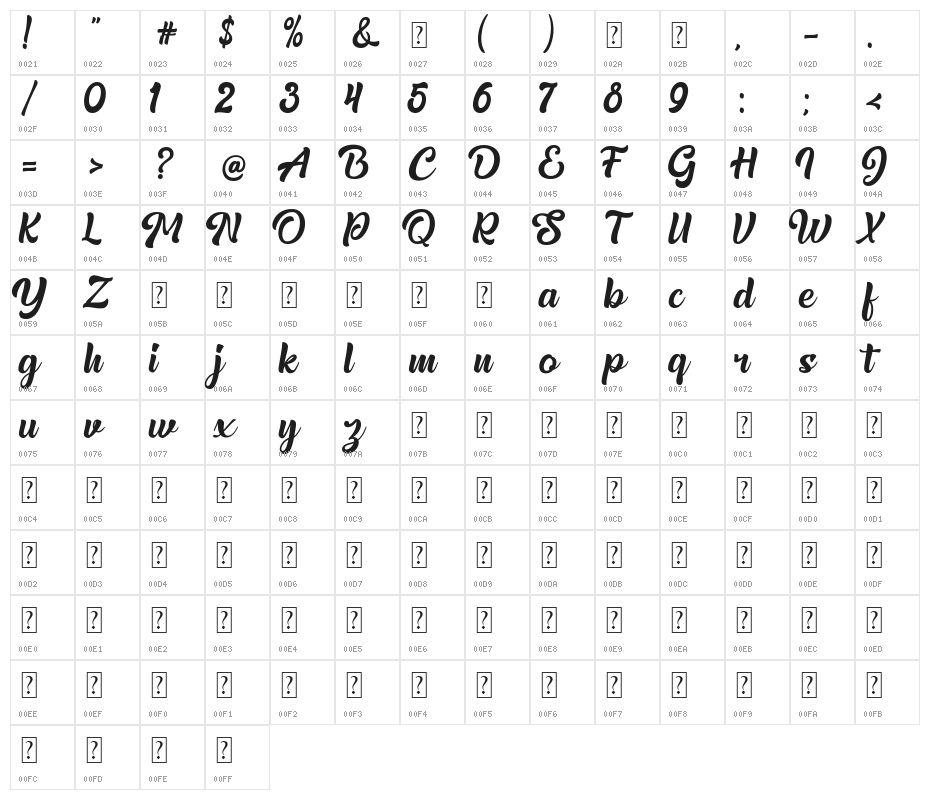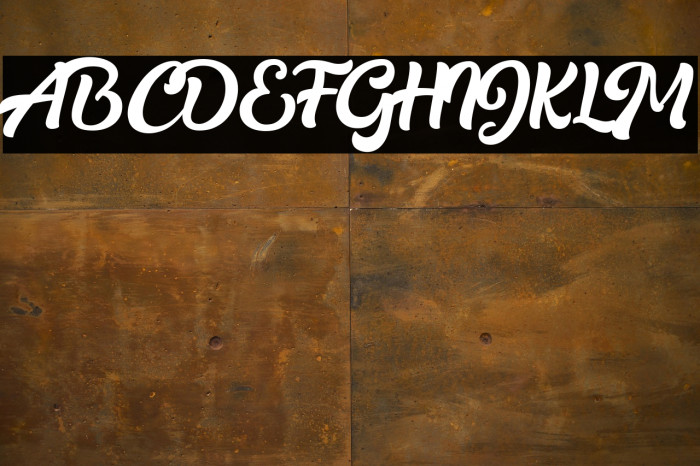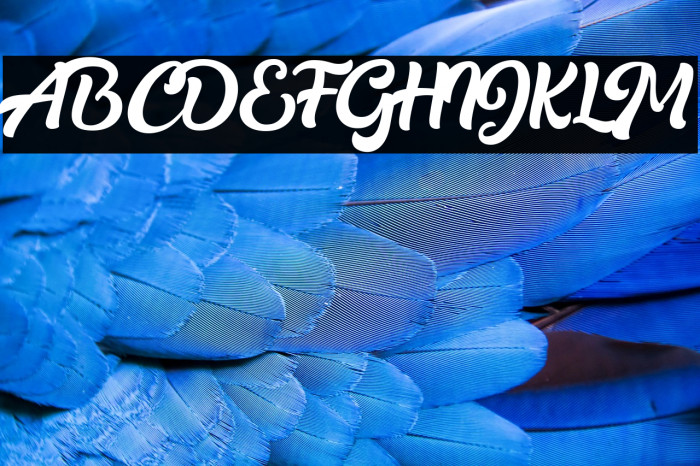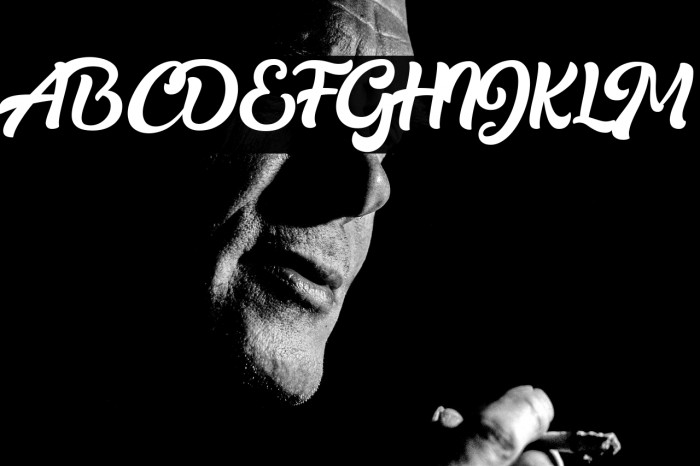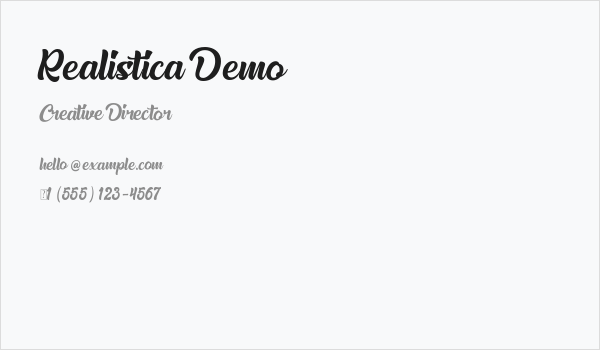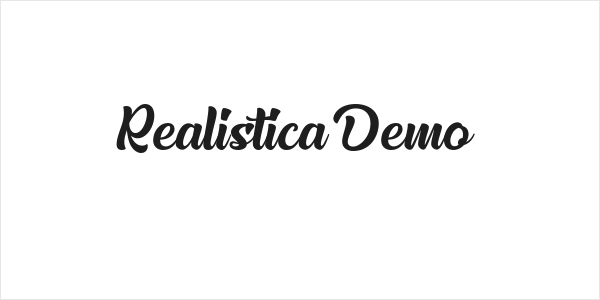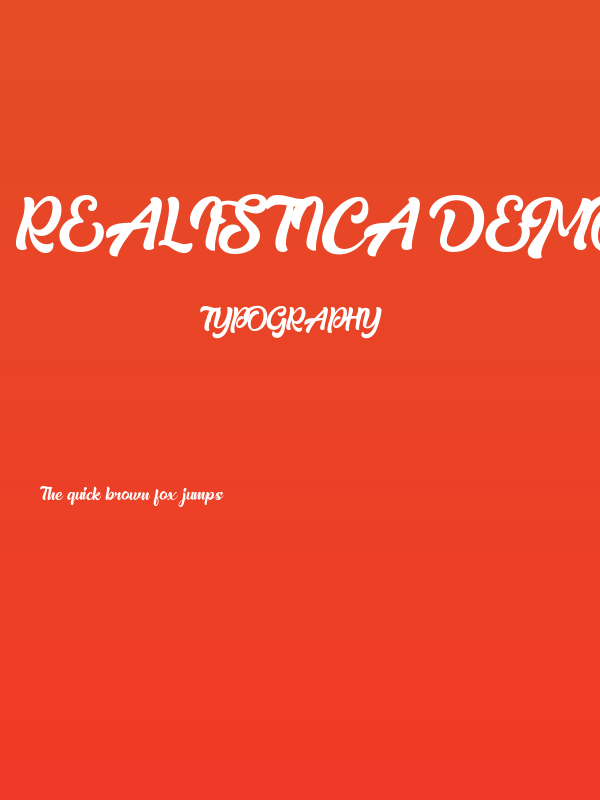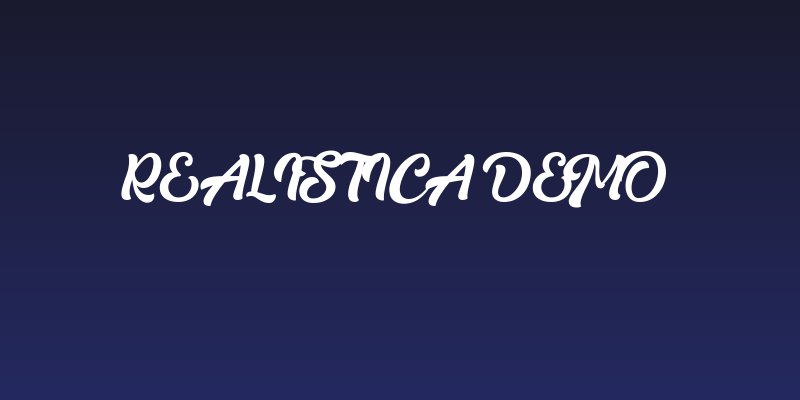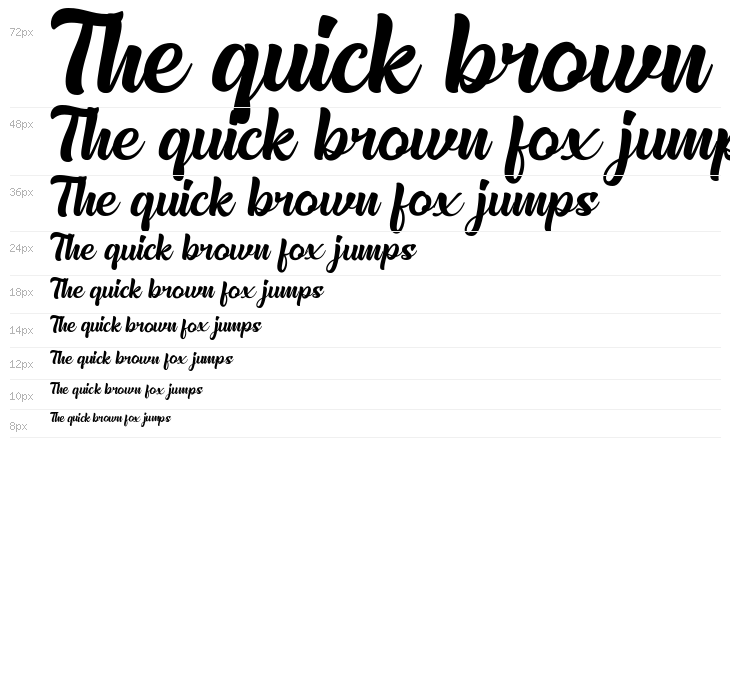
Realistica Demo Font
Realistica Demo Description
This font features a bold, cursive style with a smooth flow and elegant curves. The uppercase letters are prominently designed with a strong presence, while the lowercase letters maintain a consistent, flowing script. The numerals are bold and easily readable, complementing the overall style. Special characters are designed to match the cursive aesthetic, ensuring a cohesive look across all text elements. The font's thick strokes and rounded edges give it a friendly yet sophisticated appearance, making it versatile for various design needs.
| Proposed Projects | Ideal for branding, invitations, greeting cards, and decorative headlines. |